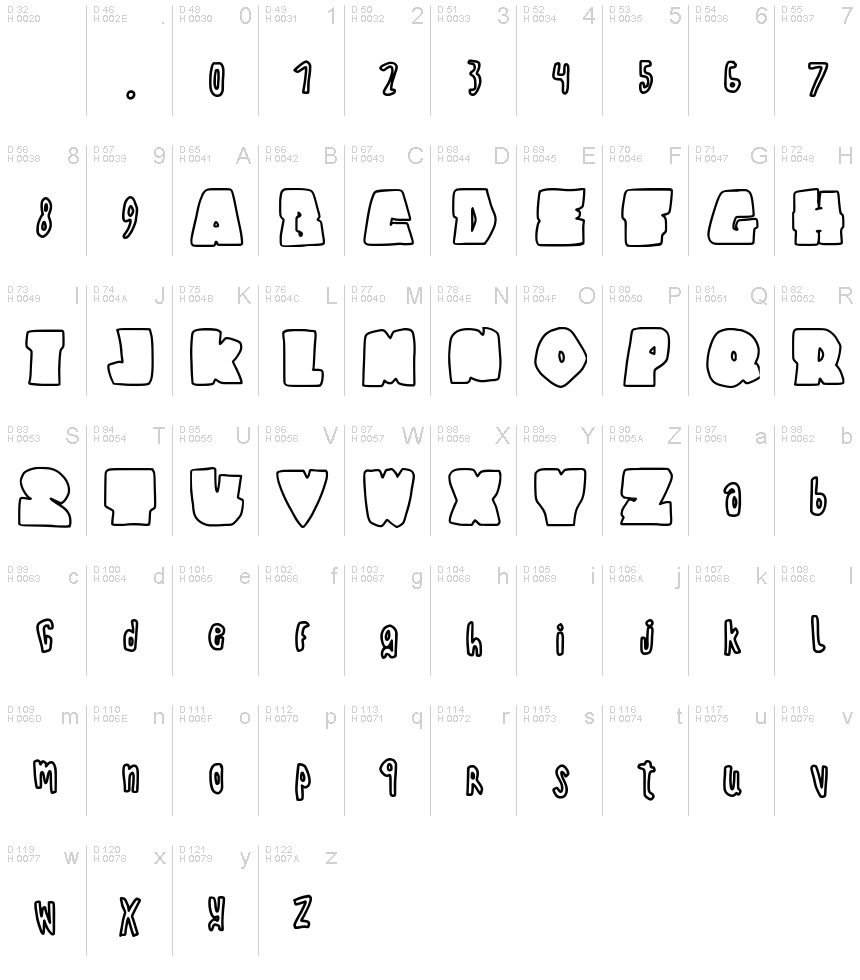
The Bisho Graffiti Stone font by Bisho Sevillano is a captivating typographical masterpiece that exudes raw, urban energy. With its gritty, outlined aesthetic, this font effortlessly captures the essence of graffiti art, inviting the viewer to experience the rugged charm of street-level expression. The bold, dynamic letterforms blend seamlessly, creating a sense of movement and vitality that is both visually striking and emotionally evocative.
Bisho Graffiti Stone's versatility shines through, making it a versatile choice for a diverse range of design applications. Its bold, attention-grabbing presence lends itself well to branding, packaging, and advertising projects, where it can help convey a sense of urban edge and rebellious spirit. Furthermore, the font's unique character makes it an excellent selection for editorial layouts, poster designs, and environmental graphics, where it can add a captivating, one-of-a-kind flair to the overall aesthetic.